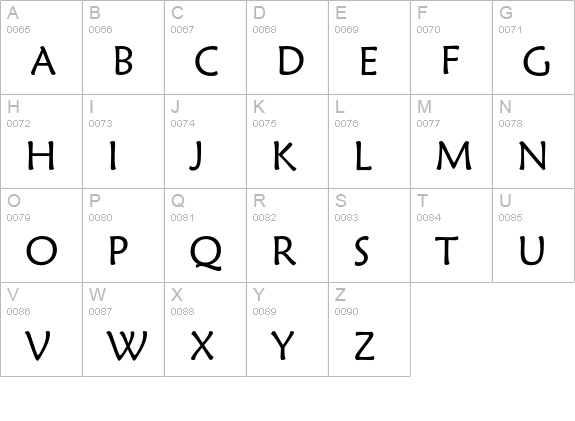
Introducing the captivating and elegant Maiandra font, a typeface that effortlessly combines classic sophistication with a modern twist. This exquisite font is perfect for adding a touch of refinement and grace to any design project. Maiandra font boasts a timeless yet contemporary appeal, making it ideal for a wide range of applications. Whether you're designing a logo, creating a stunning invitation, or crafting a beautiful website, Maiandra's fluid and graceful letterforms will effortlessly elevate your work to new heights. With its flowing lines and delicate curves, Maiandra exudes a sense of elegance and charm that is simply irresistible. Its versatility allows it to effortlessly adapt to any design style, from luxurious and decadent to clean and minimalist. One of the many remarkable aspects of the Maiandra font is its availability as a free download. That's right, you can access this mesmerizing typeface without spending a dime. Simply head over to FontsMarket.com, where you can freely download the Maiandra font and unlock its full potential for your creative endeavors. So whether you're a professional designer or a passionate enthusiast, don't miss out on this opportunity to enhance your projects with the captivating allure of the Maiandra font. Download it for free today at FontsMarket.com and let your creativity soar to new heights.